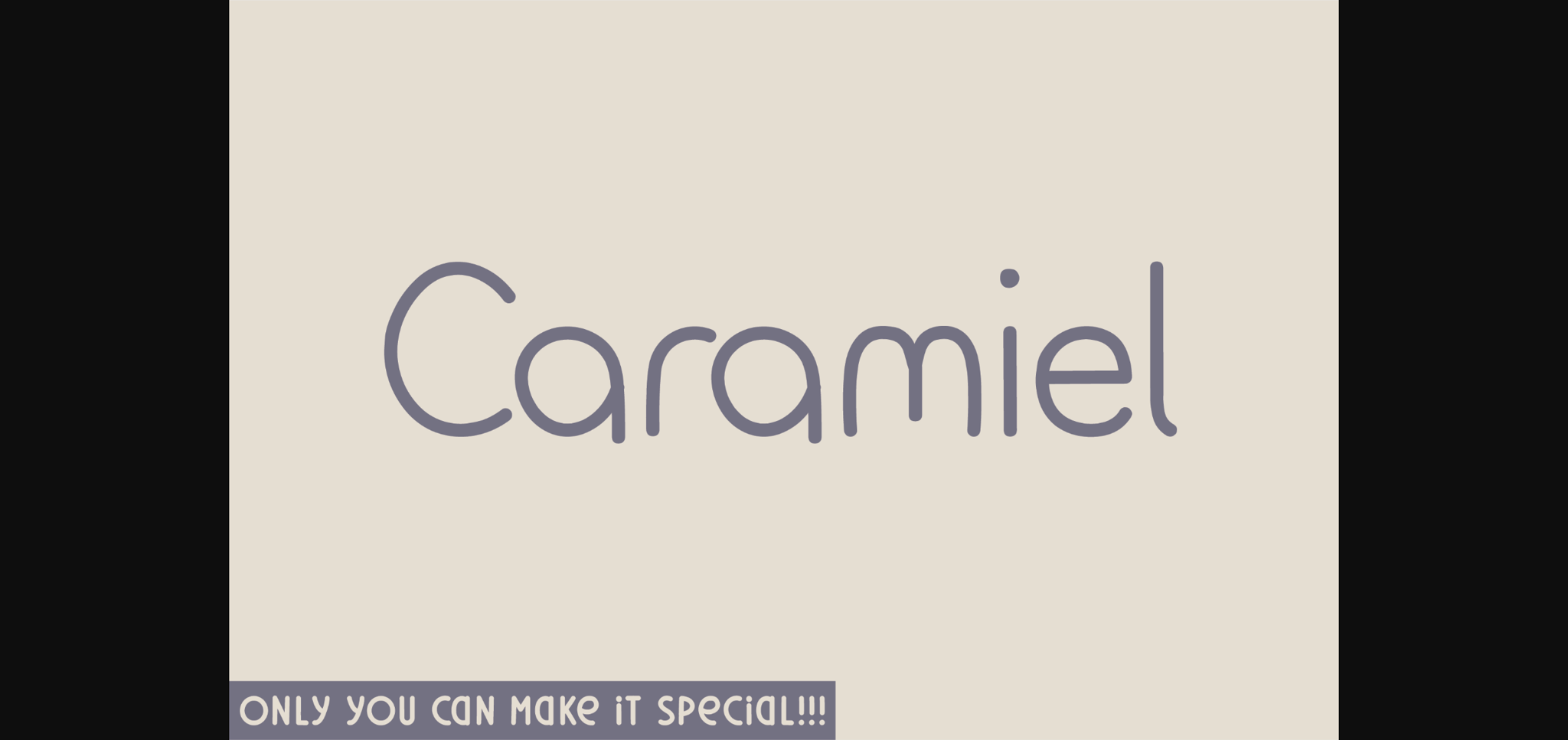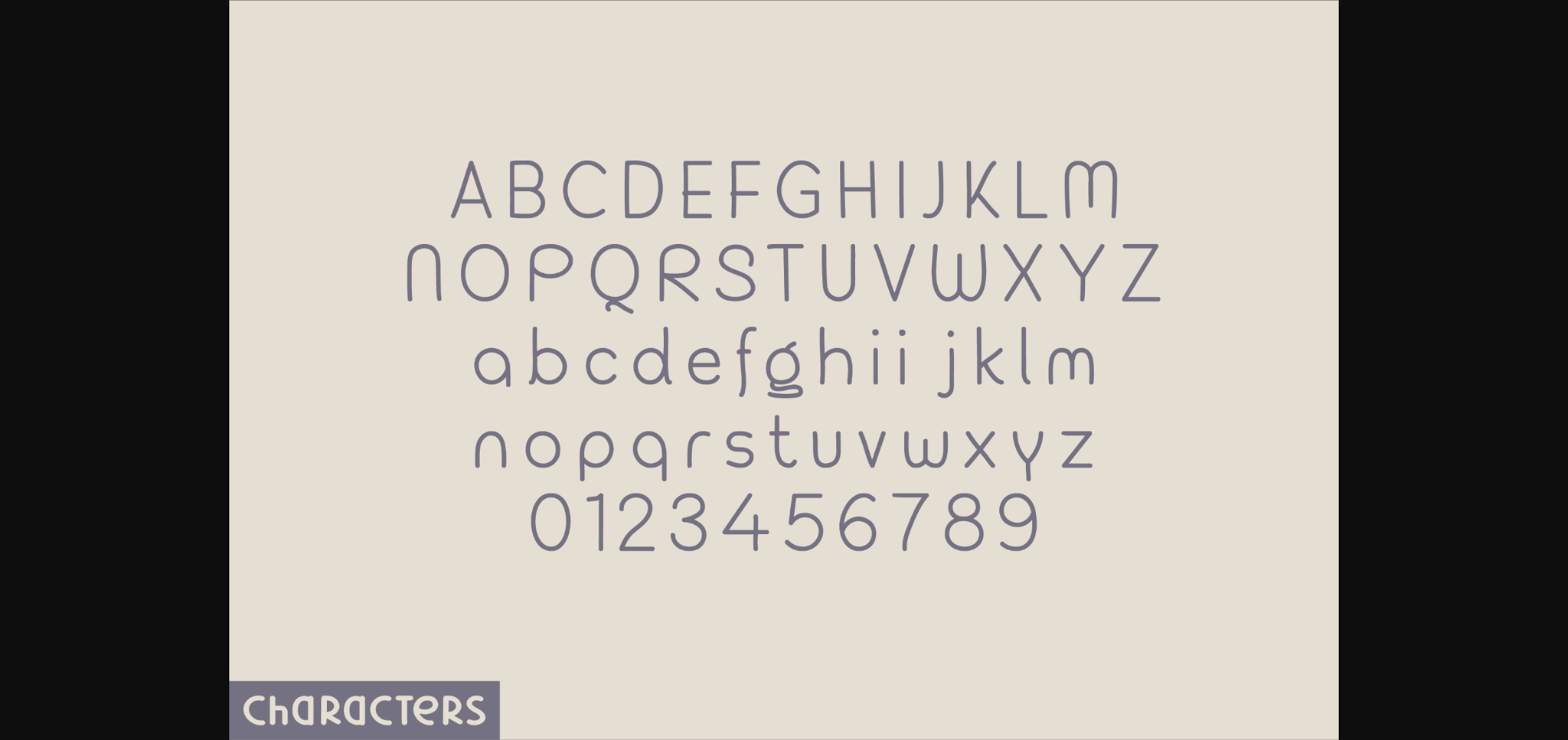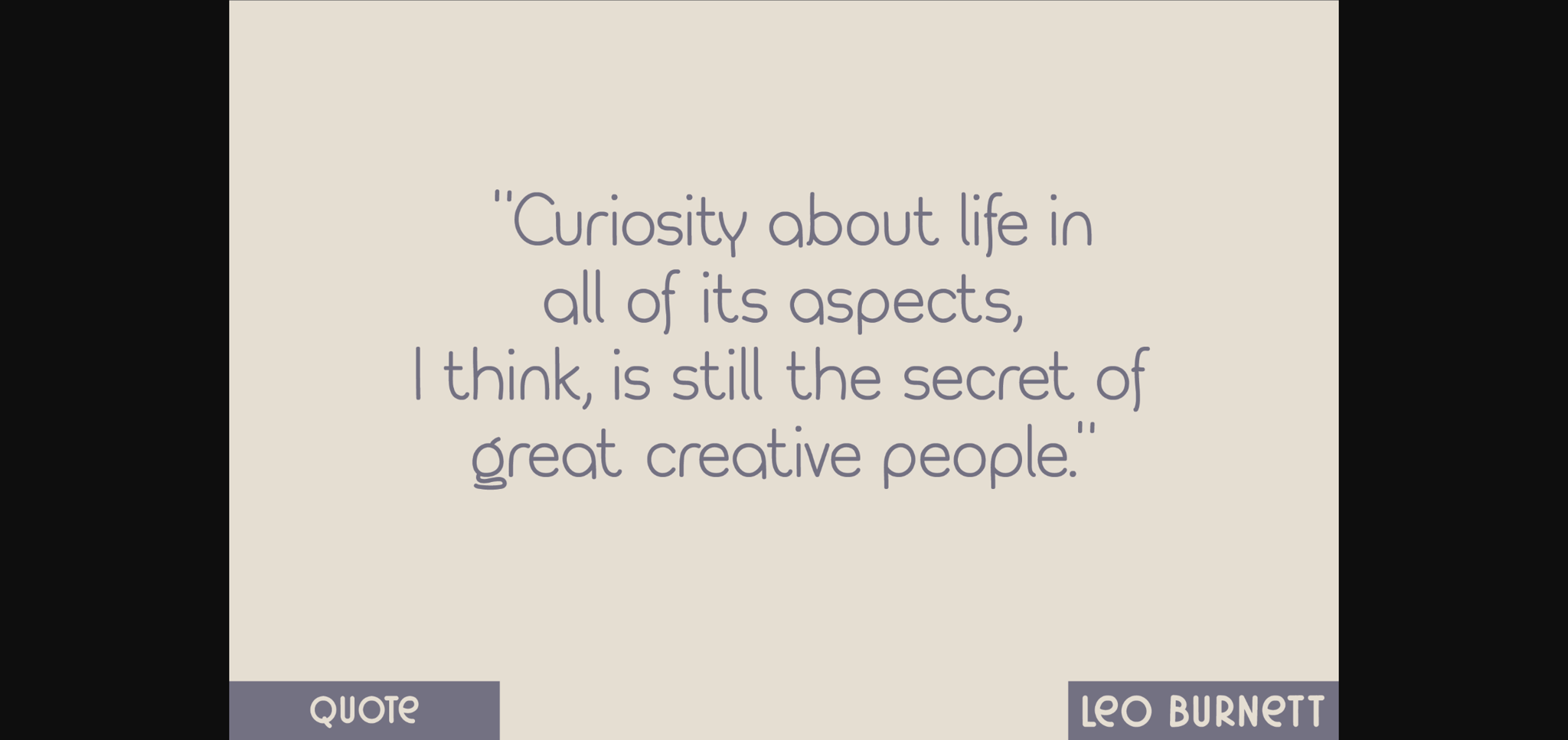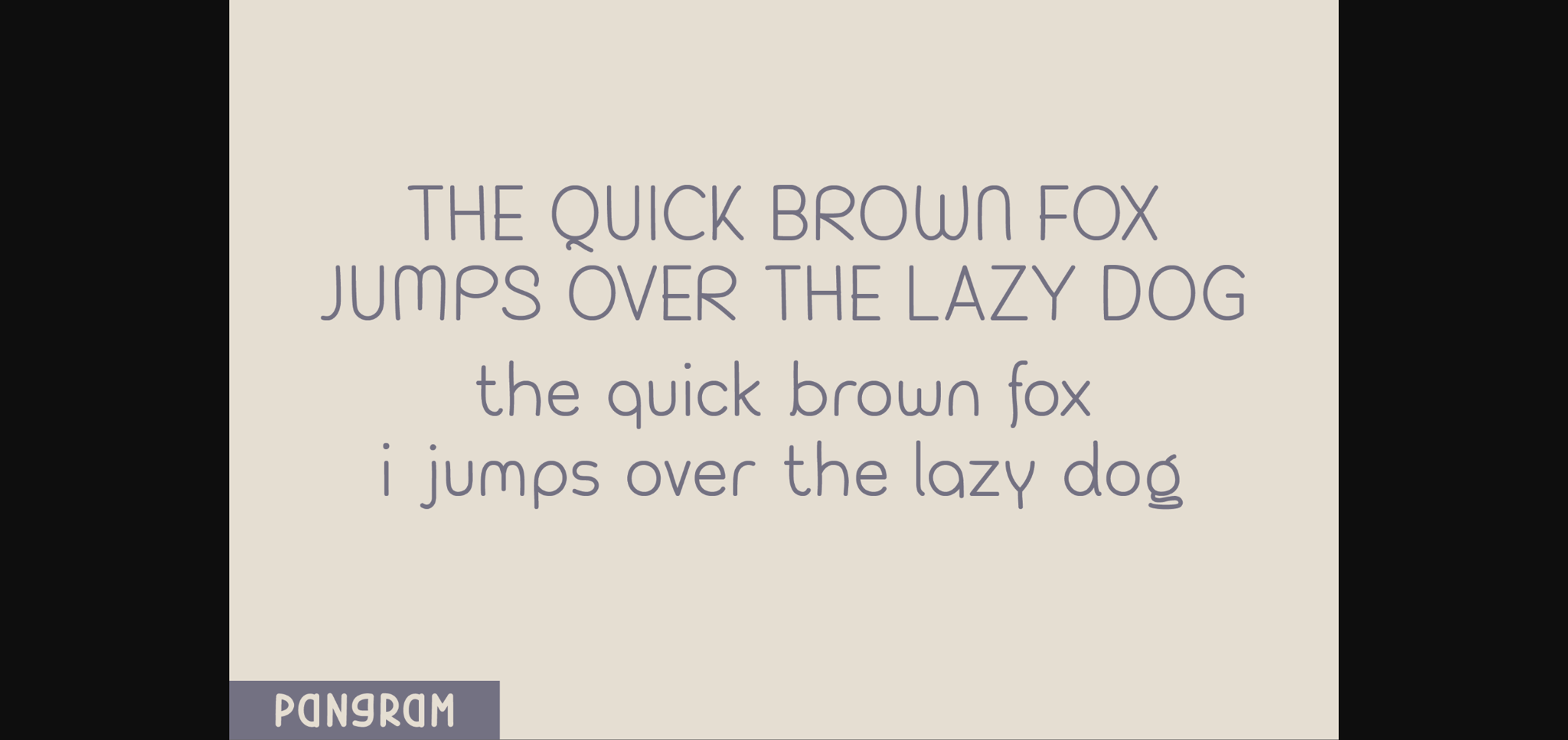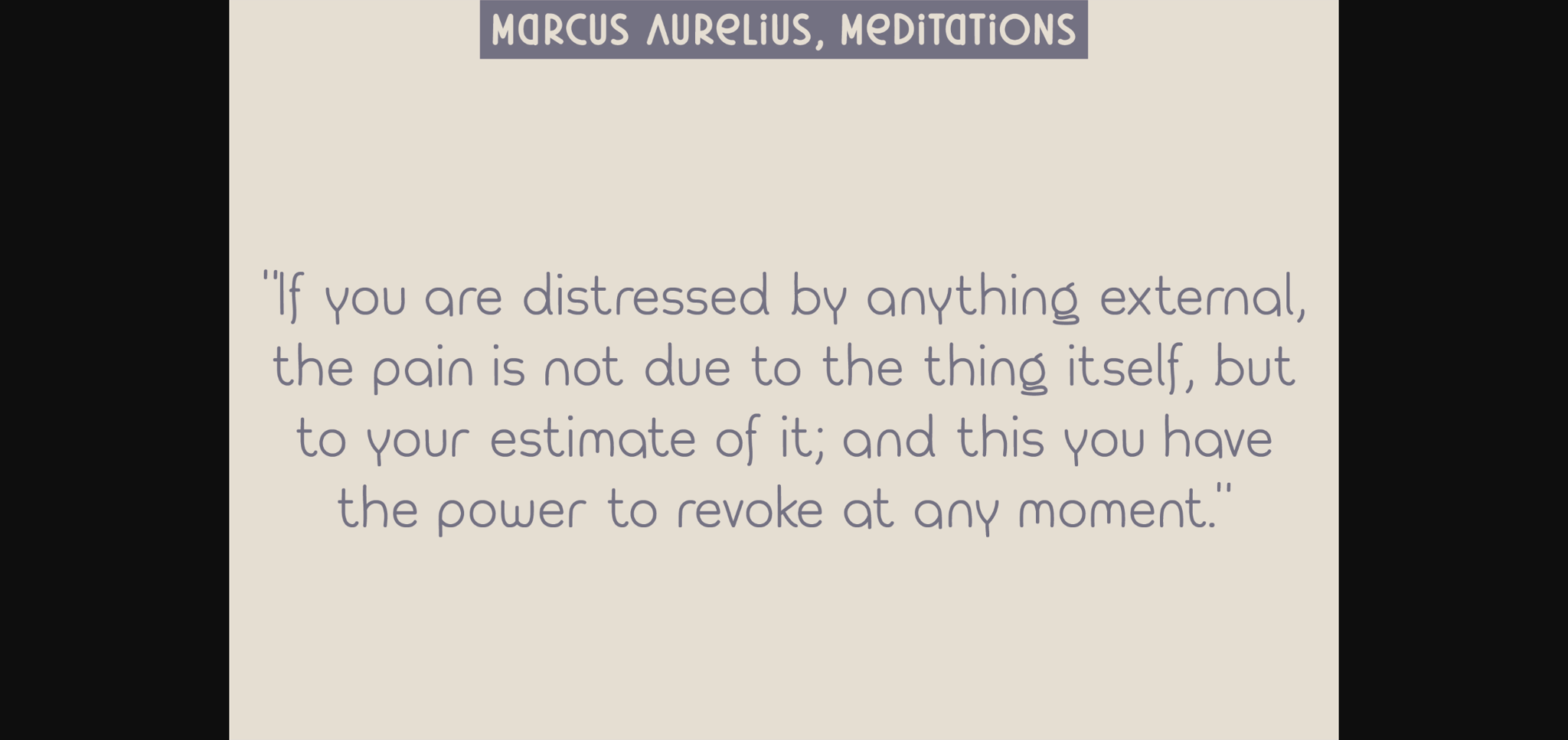
Caramiel Font
About Caramiel Font
Introducing Caramiel, a handwritten sans serif typeface that seamlessly merges sophistication and functionality. Flaunting a comprehensive set of uppercase, lowercase, numbers and utility letters, it stands as a versatile tool for every innovative mind. Each letter is meticulously crafted, presenting pleasingly firm ends that convey a distinctive charm. Whether your design calls for an exceptional flair or a stroke of ingenuity, Caramiel is the ideal font to underscore your creativity. Its striking uniqueness makes it the perfect medium to bring your design vision to life.